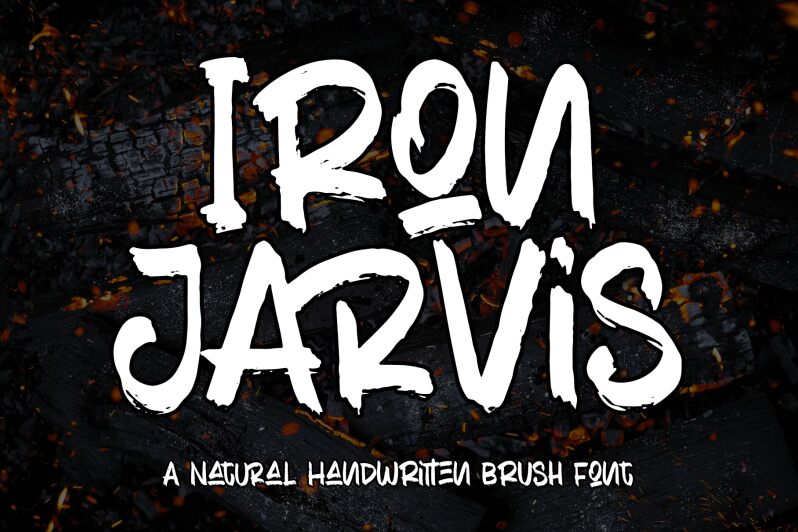
Iron Jarvis font by Letterafa Studio is a free brush font with a striking presence inspired by brush strokes. This rugged typeface delivers an informal, yet dynamic energy making every character stand out. With an expressive demeanor and a contemporary appeal, Iron Jarvis is the font to consider if you are looking to add that little bit of personality to your next design.
Admire the organic flow that it introduces to texts and all the different ways it can be manipulated. Add some artistic flair to magazine covers and ads, cards, books, posters, postcards, social media posts, as well as branding and packaging designs. Go ecofriendly and use Iron Jarvis for reusable items and clothes designs in addition to store displays and decorations.